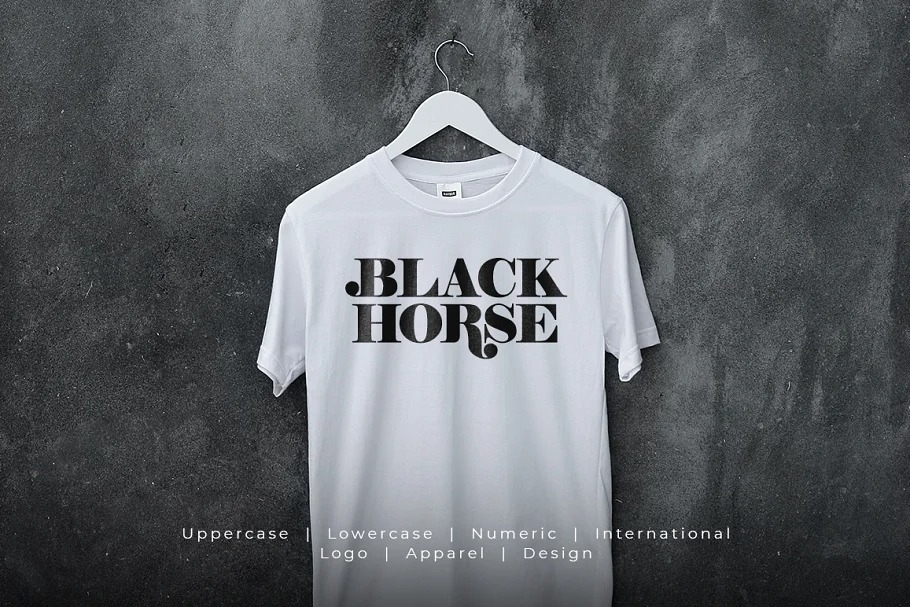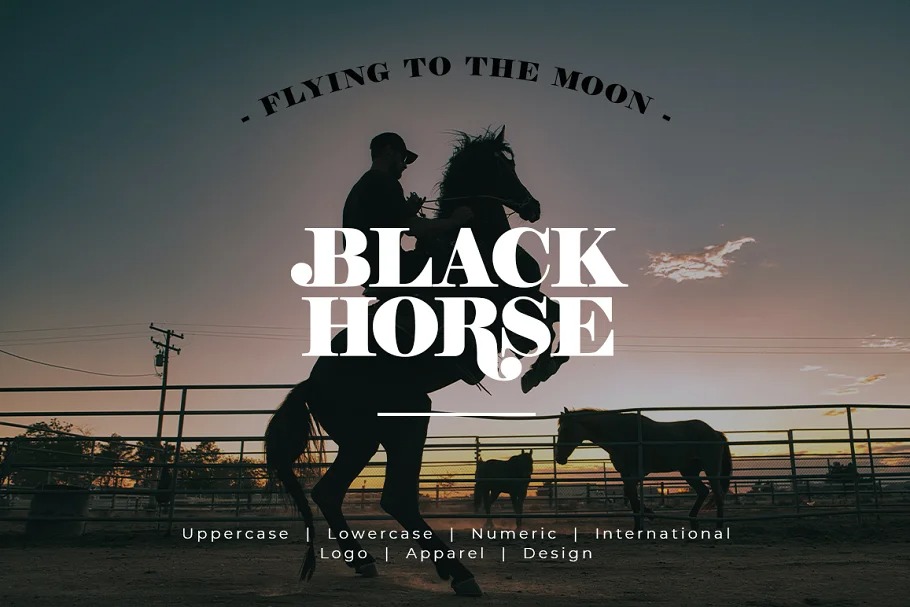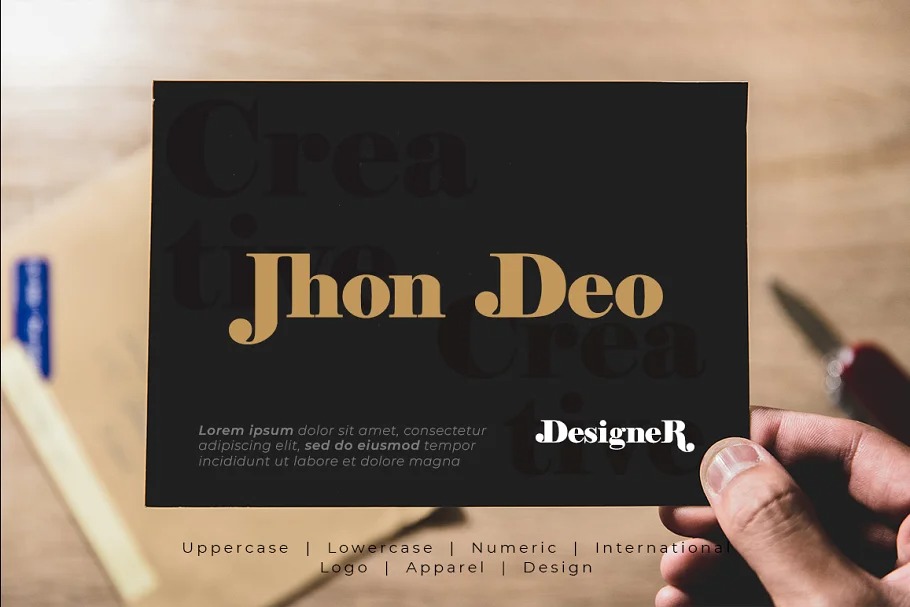
Guardian City Font
Guardian City Serif Font is a bold serif font inspired by the 70’s retro styles that bring chunky retro typography to the modern era. Guardian City Serif Font very suitable for poster, for logo, music cover, clothing, and many many cool design projects. Guardian City Serif Font is uppercase and lowercas. Numeric and international font. Regular and Italic font.